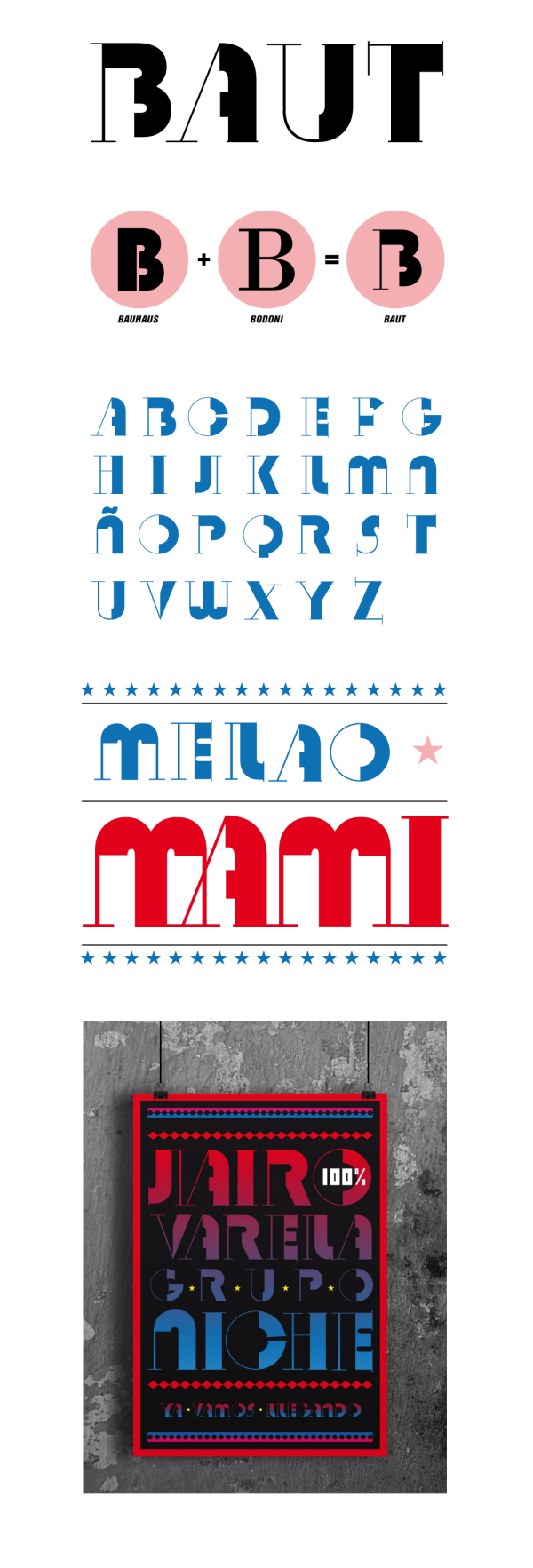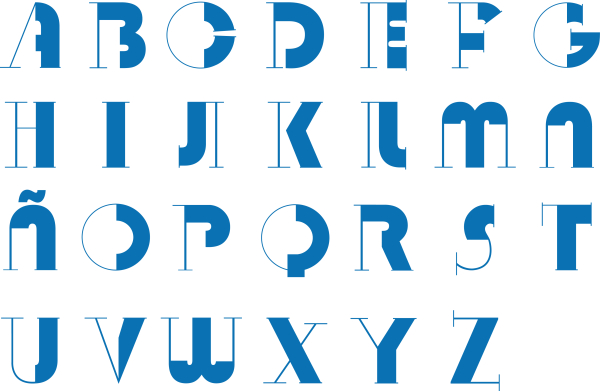
Baut
Typography created from the joint between Bauhaus and Bodoni classic fonts. Baut is designed for being used in narrow compositions or in a decorative way.
Designer: Bernardo Echeverri
Publisher: Bernardo Echeverri